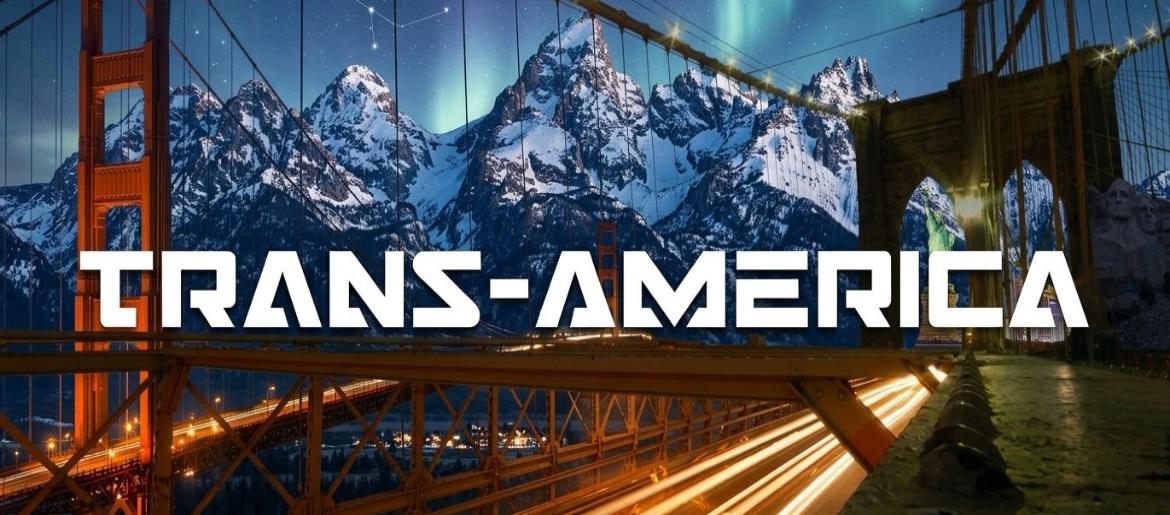
Trans-America Font
Trans-America by Iconian Fonts is a bold, exotic futuristic display typeface that arrives with the visual vocabulary of deep-space cinema and classic 80s sci-fi firmly embedded in its DNA. Delivered in an impressive 23 all-caps font versions — spanning stencil block, outline, italic, and more — it gives designers a remarkably wide range of expressive options from a single typeface. Perfect for sci-fi movie titles and book covers, magazine layouts, gaming graphics, tech branding, and poster designs that need to feel like they’ve arrived from somewhere slightly beyond the known universe. Free for personal use.